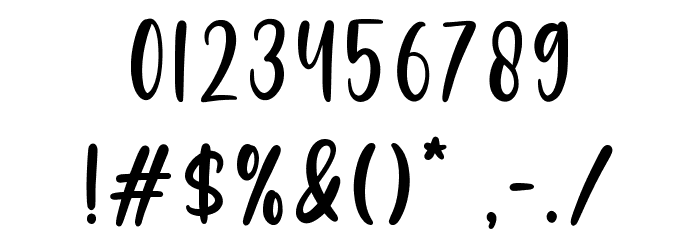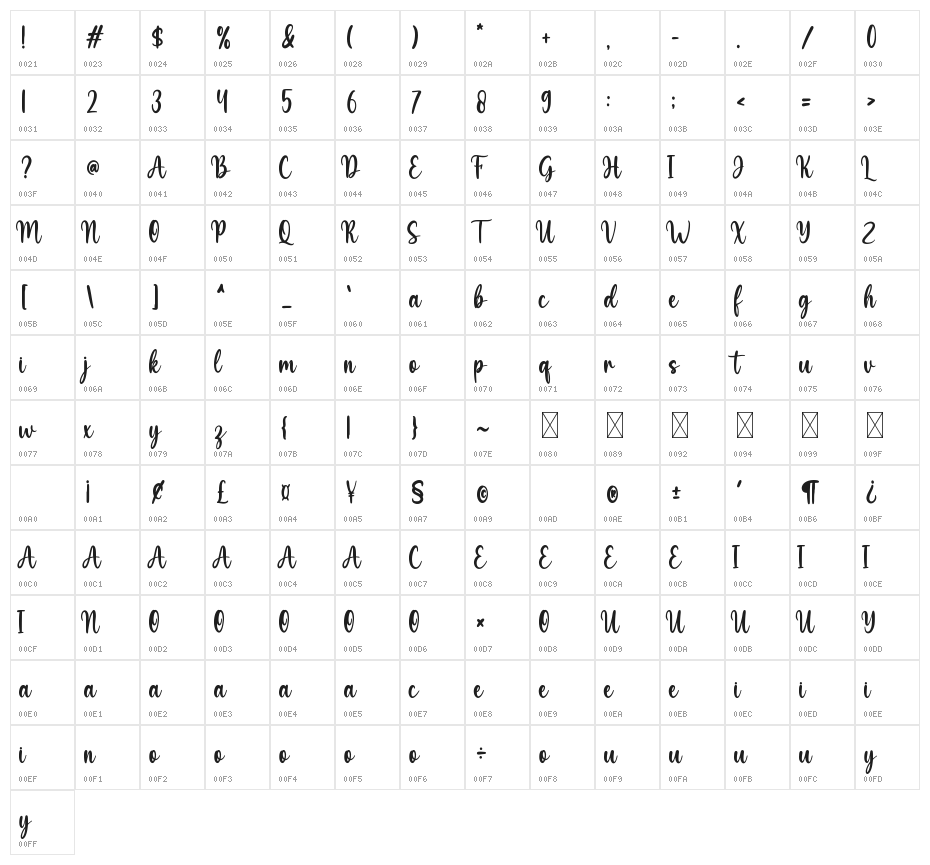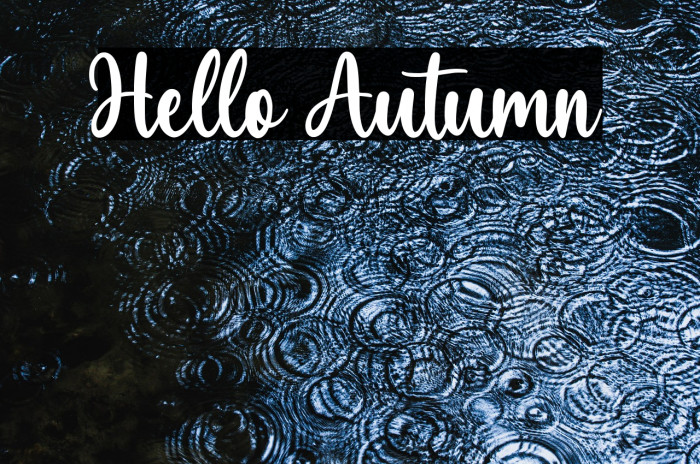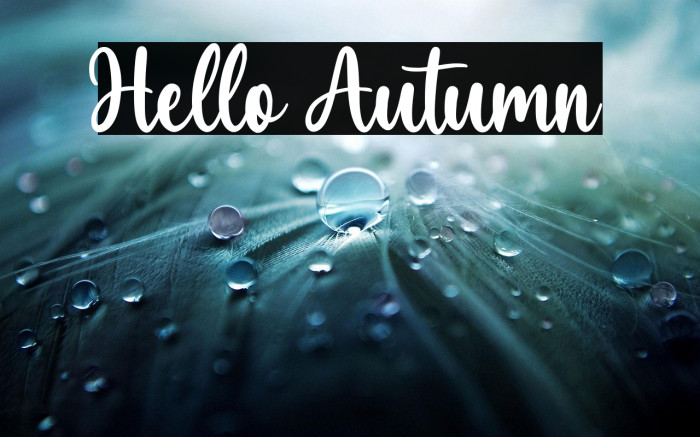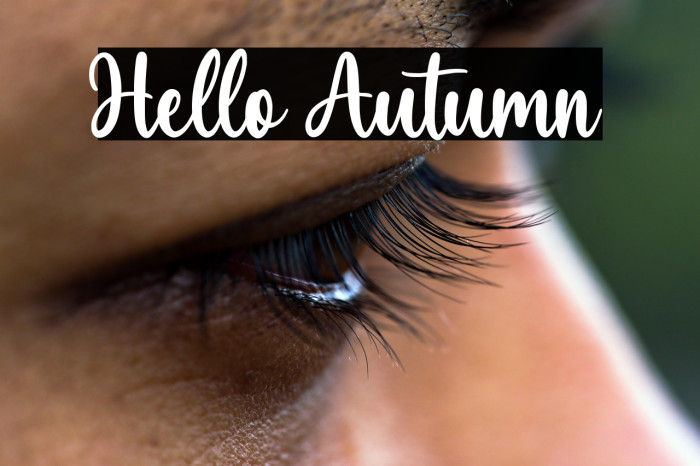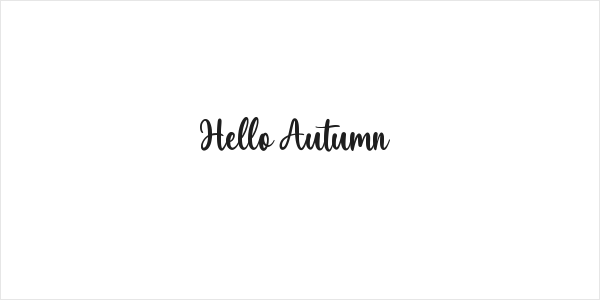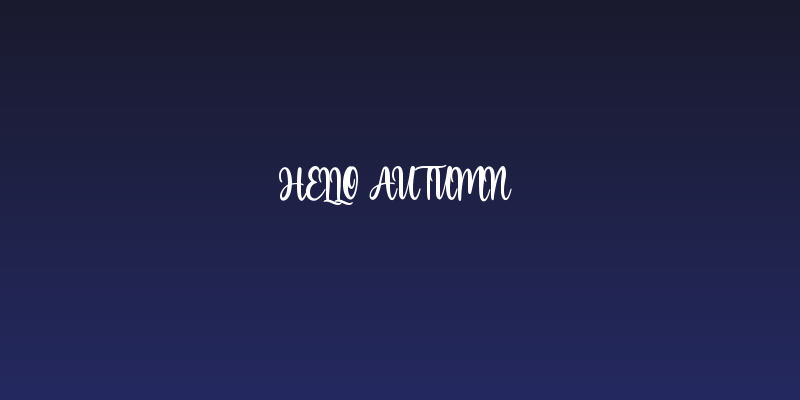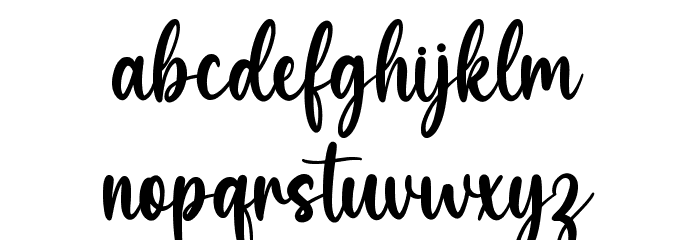
Hello Autumn Font
Hello Autumn Description
This font features a playful and flowing script style, characterized by its smooth, cursive strokes and elegant loops. The letters are interconnected, creating a sense of continuity and fluidity. It has a hand-drawn appearance, adding a personal and artistic touch to the text. The uppercase letters are bold and prominent, while the lowercase letters maintain a consistent and harmonious flow. The numerals and special characters are designed to complement the overall style, ensuring readability and aesthetic appeal. This font is ideal for projects that require a touch of elegance and creativity.